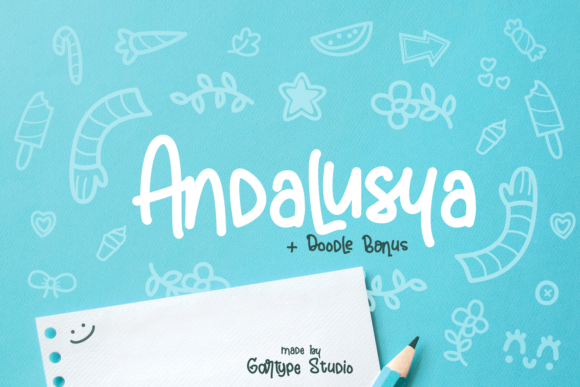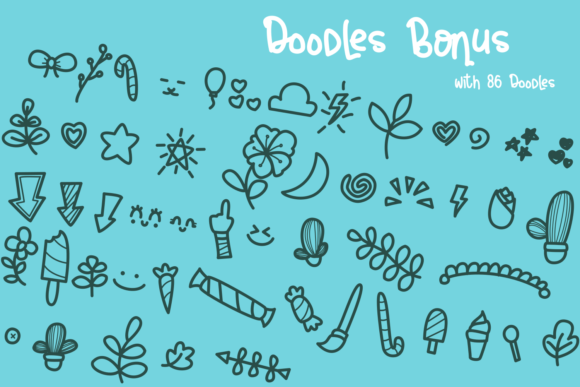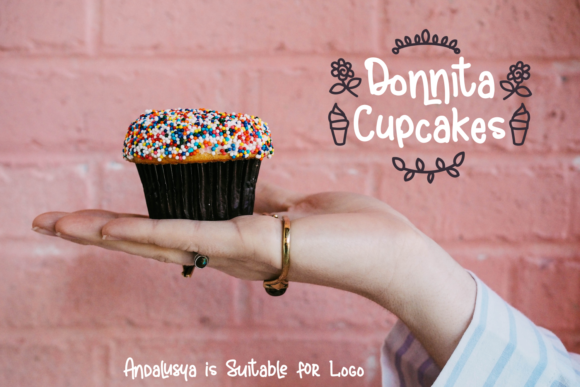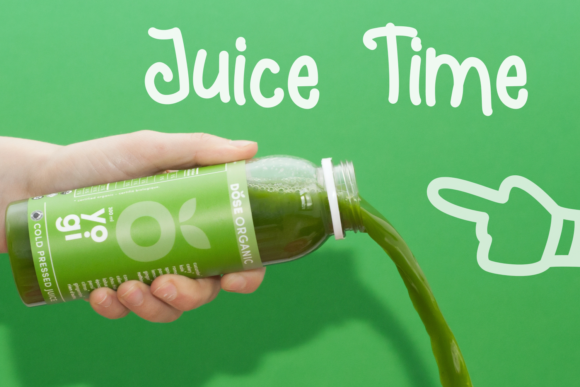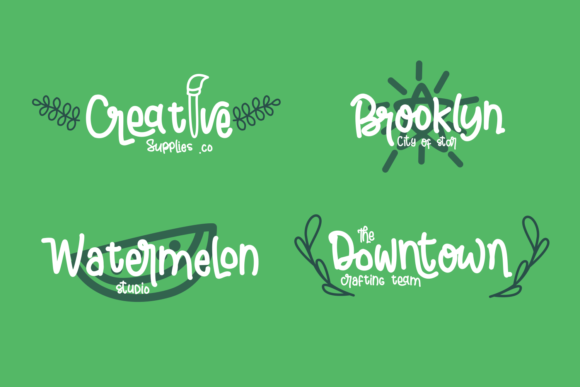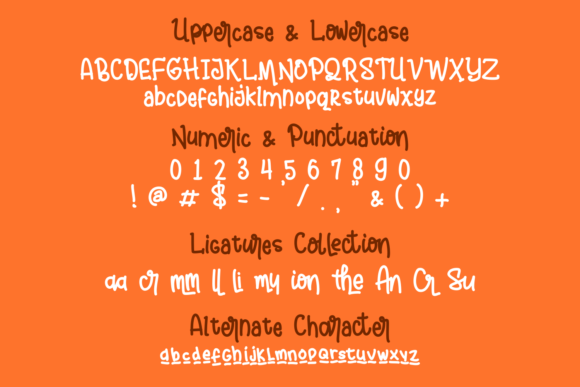
Andalusya Font
About Andalusya Font
The Andalusya is a cute script font. It has a fun style which will add a playful feel to your designs.
It’s suitable for all your needs, such as quotes, logos, branding, titles, signatures and much more!
Included as a bonus are fun doodles!